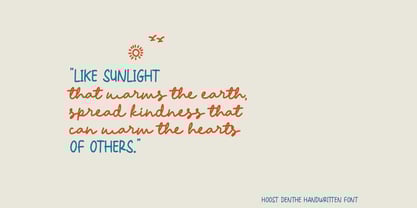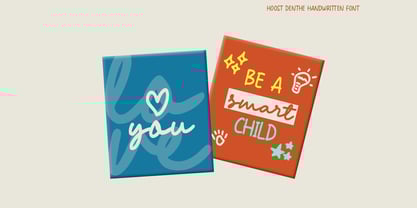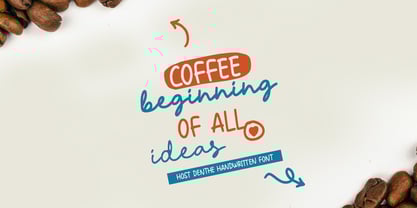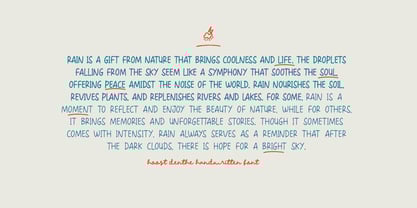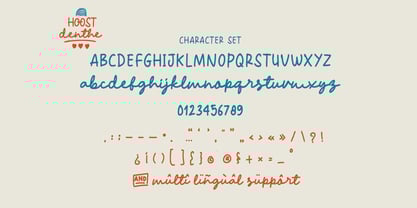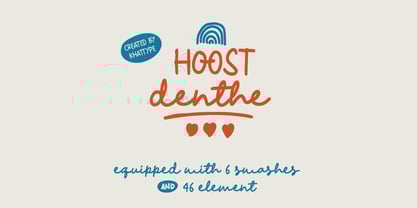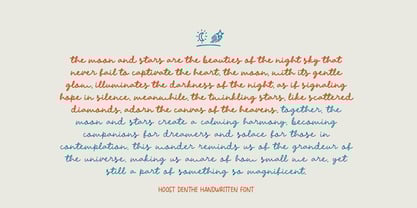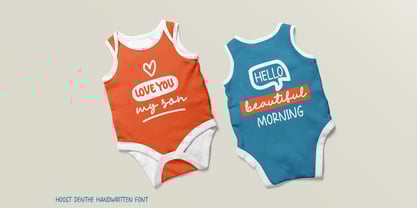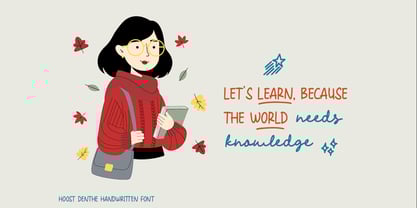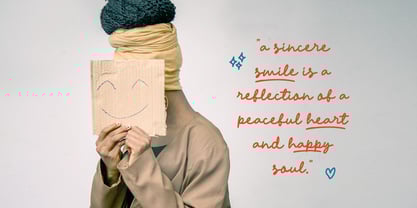
HOOST denthe
by Khat Type
The HOOST denthe Font Family was designed by Mohamad Shadiq and published by Khat Type. HOOST denthe contains 2 styles and family package options.
A fun monoline handwritten font with cheerful themes. This font can be applied to several designs such as logos, brands, packaging, quotes, children's posters, t-shirts, children's books, and other special designs. Its features include uppercase, lowercase, numbers, punctuation & symbols, multilingual support, PUA encoded (fully accessible without additional design software) and added with many cute elements to complete this font.
Designers: Mohamad Shadiq
Publisher: Khat Type
Foundry: Khat Type
Design Owner: Khat Type